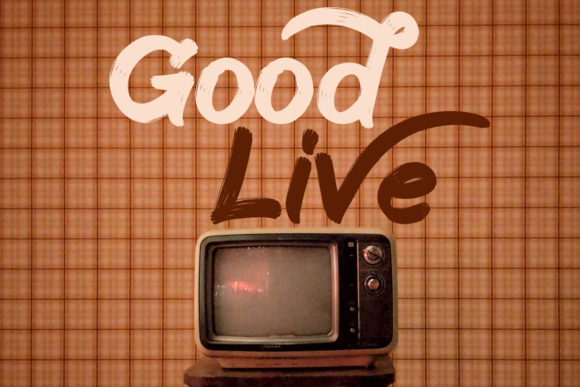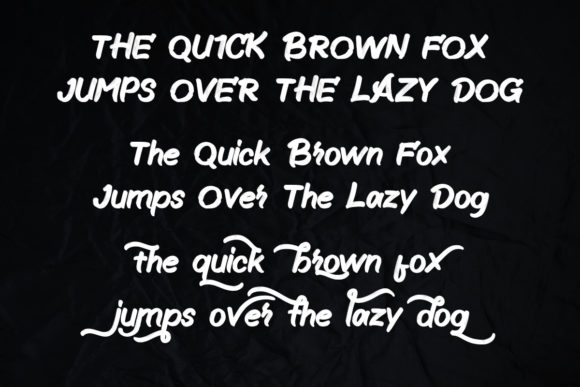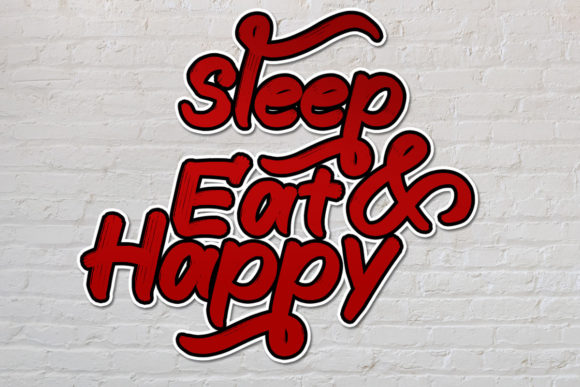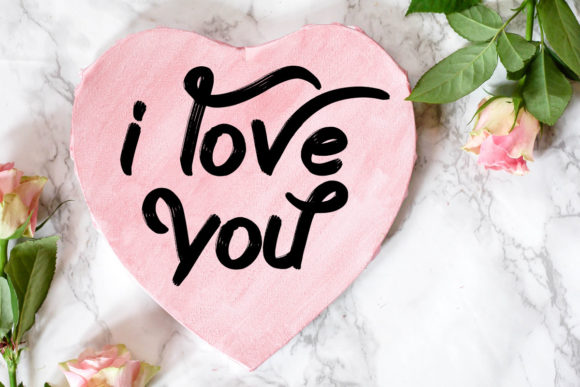
Introducing Black Duck Font: The Ultimate Display Font for Creative Projects
Are you a designer, crafter, or DIY enthusiast looking for a unique and stylish font to elevate your creative projects? Look no further than Black Duck Font, a cool, brushed, and neat styled display font that’s perfect for a wide range of applications. In this article, we’ll dive into the features and benefits of Black Duck Font, and explore how you can use it to take your designs to the next level.
What is Black Duck Font?
Black Duck Font is a display font that’s designed to make a statement. Its brushed and neat style gives it a distinctive look that’s both modern and sophisticated. The font is perfect for use in a variety of creative projects, including blog posts, logos, branding, ads, invitations, greeting cards, planners, photo albums, decorations, and much more.
Key Features of Black Duck Font
So, what makes Black Duck Font so special? Here are just a few of its key features:
- Unique Brushed Style: The font’s brushed style gives it a textured, hand-crafted look that’s perfect for adding a touch of personality to your designs.
- Neat and Modern: Despite its brushed style, Black Duck Font is surprisingly neat and modern, making it perfect for use in a wide range of creative projects.
- Highly Versatile: Whether you’re designing a logo, creating a social media graphic, or crafting a greeting card, Black Duck Font is the perfect choice.
- Easily Readable: Despite its decorative style, Black Duck Font is surprisingly easy to read, making it perfect for use in body text as well as headlines.
How to Use Black Duck Font in Your Creative Projects
So, how can you use Black Duck Font in your creative projects? Here are just a few ideas to get you started:
- Logos and Branding: Use Black Duck Font to create a unique and memorable logo for your business or brand.
- Social Media Graphics: Add a touch of personality to your social media graphics with Black Duck Font.
- Blog Posts and Articles: Use Black Duck Font to create eye-catching headlines and titles for your blog posts and articles.
- Invitations and Greeting Cards: Create beautiful and unique invitations and greeting cards with Black Duck Font.
- Decorations and Crafts: Use Black Duck Font to add a personal touch to your decorations and crafts.
Why Choose Black Duck Font?
So, why should you choose Black Duck Font for your creative projects? Here are just a few reasons:
- Unique and Stylish: Black Duck Font is a truly unique and stylish font that’s sure to make your designs stand out.
- Highly Versatile: The font is perfect for use in a wide range of creative projects, from logos and branding to social media graphics and decorations.
- Easily Readable: Despite its decorative style, Black Duck Font is surprisingly easy to read, making it perfect for use in body text as well as headlines.
- Professional Quality: Black Duck Font is a high-quality font that’s designed to meet the needs of professional designers and crafters.
In conclusion, Black Duck Font is a cool, brushed, and neat styled display font that’s perfect for a wide range of creative projects. Its unique style, versatility, and readability make it the perfect choice for designers, crafters, and DIY enthusiasts. Whether you’re looking to create a logo, social media graphic, or decoration, Black Duck Font is the perfect choice. So why wait? Download Black Duck Font today and start taking your designs to the next level!